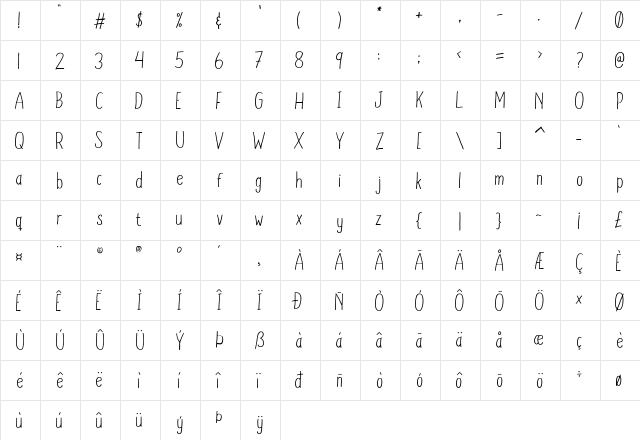
BOLICA Regular
Design Context for BOLICA Typeface
BOLICA is a composed and adaptable typeface that performs quietly and consistently across a wide range of design contexts.